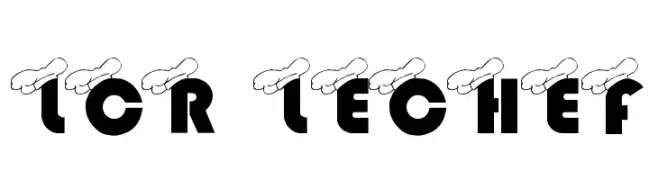
( LeChefRene - members.aol.com/lcrfonts/ )
A playful font with chef-themed decorations on each character.
( LeChefRene - members.aol.com/lcrfonts/ )
A bold, playful font with chef hats atop each character, perfect for culinary themes.